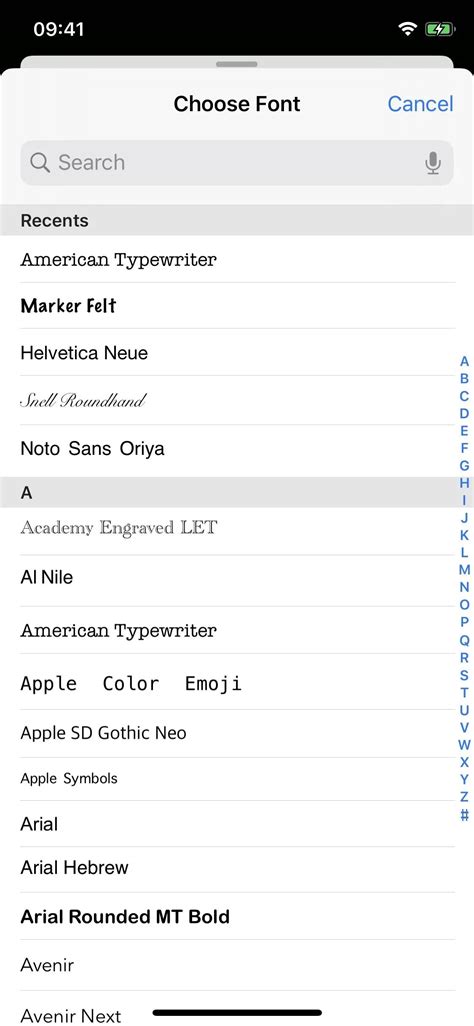
IOS 13.3 ZFont: Customize Your IPhone's Font!
iOS 13.3 ZFont: Unleash Font Customization on Your iPhone!
Hey guys! Ever looked at your iPhone and thought, “Man, I wish I could change the font?” Well, you’re in luck! This article is all about iOS 13.3 ZFont , the awesome tool that lets you customize your iPhone’s fonts like never before. We’ll dive into what ZFont is, how to use it, and why you might want to give your iPhone a font makeover. Get ready to ditch the boring default fonts and personalize your iOS 13.3 experience !
What is ZFont and Why Should You Care?
So, what exactly is ZFont ? In a nutshell, it’s an app that lets you change the system fonts on your iPhone . Now, before you start picturing some complicated process, relax! ZFont is actually super user-friendly. It provides a library of fonts you can easily install and apply to your device. Think of it like a font playground for your iPhone. You can experiment with different styles – from elegant scripts to bold, modern fonts – until you find the perfect look. The ability to personalize the appearance of your device is a huge win for many users. The customization options are often limited on iPhones compared to other platforms, so having a tool like ZFont opens up a whole new world of personalization.
Why should you care about changing your font? Well, first off, it’s a great way to make your iPhone stand out. Let’s face it; most iPhones look pretty similar. Changing the font is a simple yet effective way to add a personal touch and make your device feel unique. Beyond aesthetics, font customization can also improve readability. Some people find certain fonts easier on the eyes than others. With ZFont , you can choose a font that’s optimized for your visual preferences, making reading texts, browsing the web, and using apps more enjoyable. For users with visual impairments, font customization can be a game-changer, allowing them to select a font size and style that meets their specific needs. Also, think about the fun factor! You can switch up your font to match your mood, the season, or whatever takes your fancy. It’s a fun and easy way to refresh your device’s look and add a little bit of excitement to your daily tech routine. Ultimately, ZFont empowers you to take control of your iPhone’s appearance and make it truly your own.
Benefits of Using ZFont
• Enhanced Personalization: Stand out from the crowd by giving your iPhone a unique look.
• Improved Readability: Choose fonts that are easier on the eyes and enhance your reading experience.
• Accessibility: Customize font size and style for users with visual impairments.
• Fun and Flexible: Experiment with different fonts to match your mood or style.
Customization Tips and Tricks for ZFont Users
Alright, you’ve got ZFont installed, and you’re rocking a fresh new font. Now what? Let’s dive into some tips and tricks to get the most out of your ZFont experience and to ensure you have the best possible customization experience. First off, consider exploring different font styles. ZFont typically offers a wide variety, from classic serif fonts to modern sans-serif fonts, and even fun, quirky options. Experiment with different styles to see which one best suits your taste and the overall look you’re going for. Keep in mind, too, the readability of the font. While a super-stylish font might look cool, it’s not very helpful if it’s hard to read. Choose fonts that balance aesthetics with functionality. Pay attention to font sizes. ZFont usually allows you to adjust the size of the font, giving you more control over your device’s display. You can make the font larger for improved readability or smaller to fit more content on the screen. Also, think about the context in which you use your phone. If you primarily use your phone for reading long texts, opt for a font that’s easy on the eyes. If you’re a heavy social media user, choose a font that enhances your posts and messages.
Think about the apps you use most often. Some apps may not fully support custom fonts. However, the fonts applied through ZFont will generally be visible in most system-wide areas and in apps that use the default iOS text rendering. If you find an app that doesn’t display your custom font, it might be due to the app’s internal settings or design. Consider checking the app’s settings for font customization options as a workaround. Beyond individual fonts, you can also experiment with different themes. Some ZFont apps or similar tools may provide theme options that combine custom fonts with other UI elements. Take advantage of these options to create a cohesive and personalized look for your iPhone. Remember that font customization is all about personal preference. Try out different fonts, experiment with settings, and see what works best for you. Don’t be afraid to change your font frequently! Part of the fun is finding the perfect look that matches your mood or the occasion. Keep exploring and discovering new fonts and features within ZFont to keep your iPhone feeling fresh and personalized. By tweaking and experimenting, you will quickly master the art of font customization and have an iPhone that truly reflects your style. Don’t be afraid to take risks and have fun!
Pro Tips for Mastering Font Customization
• Explore Different Styles: Try a variety of fonts to discover your favorites.
• Prioritize Readability: Choose fonts that are easy to read and comfortable for your eyes.
• Adjust Font Sizes: Customize the font size for optimal viewing.
• Consider App Compatibility: Not all apps fully support custom fonts.
Conclusion: Your Font, Your iPhone!
Well, there you have it, guys! ZFont on iOS 13.3 opens up a world of font customization possibilities. From making your iPhone stand out to improving readability and adding a touch of personality, the benefits are clear. Remember to approach the process with caution, downloading the app from a trusted source. If you have any problems, make sure to read the troubleshooting section! Experiment with different fonts, play around with settings, and discover what works best for you. Don’t be afraid to change your font frequently and enjoy the process of personalization. By following the tips and tricks, you’ll be able to create a unique and visually appealing iPhone experience. ZFont is a powerful tool to make your iPhone feel truly yours. So, go ahead, download ZFont , and start customizing! Your perfect font is just a few taps away. Happy customizing!